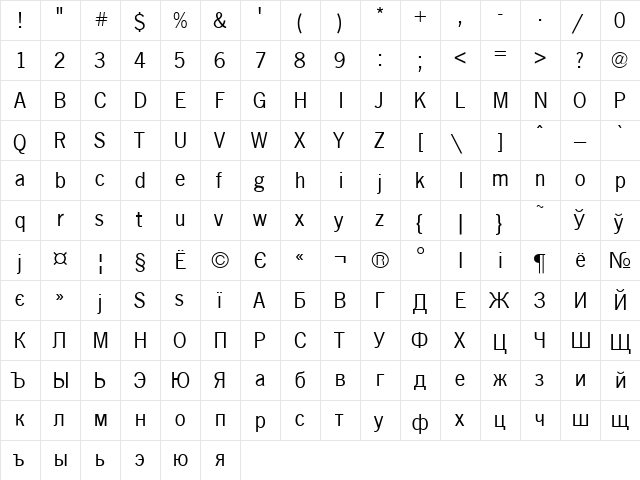
NewsPaperCTT Regular
Design Context for NewsPaperCTT Typeface
NewsPaperCTT offers clean, dependable letterforms without strong stylistic allegiance, making it a practical choice for designers who need flexibility.